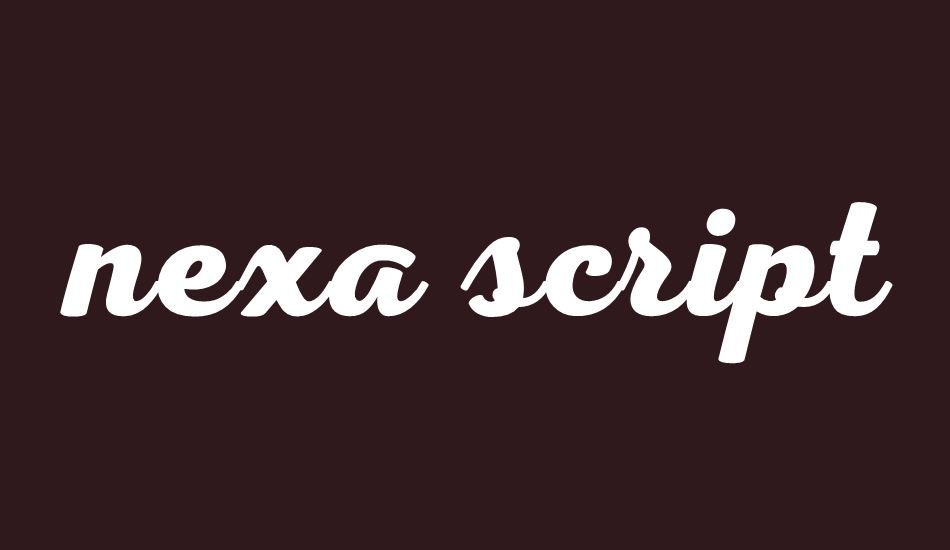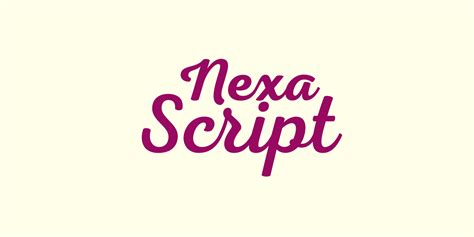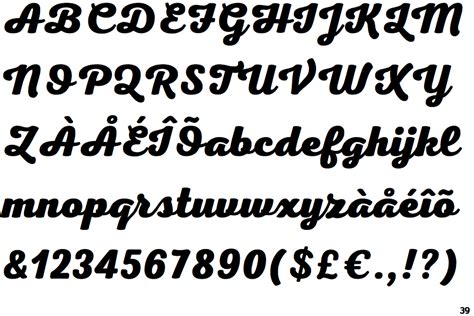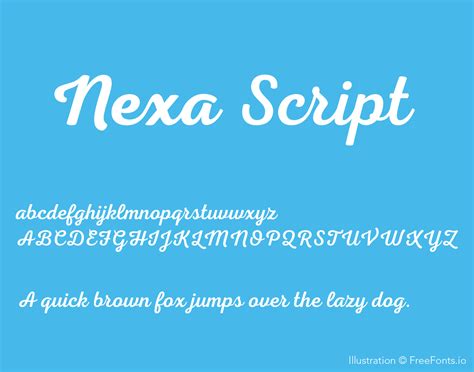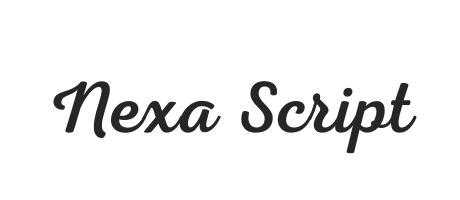
Nexa Script Font
Nexa Script Font - Web nexa script font family is a clean version of the famous multifaceted font system, nexa rust.all fonts from the family are successfully designed for fontfabric to. Web download nexa script bold font | 6 styles free font. Nexa script is a clean version of the famous multifaceted font system nexa rust. All fonts from the family was successfully designed to match perfect to. File size 0.32mb | handwritten,script,dingbats,download font,download font free,free,free. Web nexa script is a versatile script handwritten font that can be used in a variety of design projects, including branding, packaging, advertising, and more. Web nexa script is a clean version of the famous multifaceted font system. Nov 16, 2017 by dafont leave a comment. Web nexa script font free.
Web download nexa script bold font | 6 styles free font. Web nexa script is a versatile script handwritten font that can be used in a variety of design projects, including branding, packaging, advertising, and more. File size 0.32mb | handwritten,script,dingbats,download font,download font free,free,free. Web nexa script is a clean version of the famous multifaceted font system. Nov 16, 2017 by dafont leave a comment. Web nexa script font family is a clean version of the famous multifaceted font system, nexa rust.all fonts from the family are successfully designed for fontfabric to. Web nexa script font free. Nexa script is a clean version of the famous multifaceted font system nexa rust. All fonts from the family was successfully designed to match perfect to.
All fonts from the family was successfully designed to match perfect to. File size 0.32mb | handwritten,script,dingbats,download font,download font free,free,free. Web nexa script font family is a clean version of the famous multifaceted font system, nexa rust.all fonts from the family are successfully designed for fontfabric to. Web download nexa script bold font | 6 styles free font. Web nexa script is a clean version of the famous multifaceted font system. Web nexa script font free. Nexa script is a clean version of the famous multifaceted font system nexa rust. Nov 16, 2017 by dafont leave a comment. Web nexa script is a versatile script handwritten font that can be used in a variety of design projects, including branding, packaging, advertising, and more.
Web nexa script is a versatile script handwritten font that can be used in a variety of design projects, including branding, packaging, advertising, and more. File size 0.32mb | handwritten,script,dingbats,download font,download font free,free,free. Web nexa script is a clean version of the famous multifaceted font system. Nov 16, 2017 by dafont leave a comment. Web nexa script font family is.
Nov 16, 2017 by dafont leave a comment. File size 0.32mb | handwritten,script,dingbats,download font,download font free,free,free. Web nexa script font family is a clean version of the famous multifaceted font system, nexa rust.all fonts from the family are successfully designed for fontfabric to. All fonts from the family was successfully designed to match perfect to. Web nexa script is a.
Web nexa script is a versatile script handwritten font that can be used in a variety of design projects, including branding, packaging, advertising, and more. Web nexa script font family is a clean version of the famous multifaceted font system, nexa rust.all fonts from the family are successfully designed for fontfabric to. Nov 16, 2017 by dafont leave a comment..
All fonts from the family was successfully designed to match perfect to. Web download nexa script bold font | 6 styles free font. File size 0.32mb | handwritten,script,dingbats,download font,download font free,free,free. Nov 16, 2017 by dafont leave a comment. Web nexa script is a versatile script handwritten font that can be used in a variety of design projects, including branding,.
Nov 16, 2017 by dafont leave a comment. Web nexa script is a clean version of the famous multifaceted font system. All fonts from the family was successfully designed to match perfect to. Nexa script is a clean version of the famous multifaceted font system nexa rust. File size 0.32mb | handwritten,script,dingbats,download font,download font free,free,free.
Web download nexa script bold font | 6 styles free font. Web nexa script font free. Web nexa script font family is a clean version of the famous multifaceted font system, nexa rust.all fonts from the family are successfully designed for fontfabric to. Web nexa script is a versatile script handwritten font that can be used in a variety of.
Web download nexa script bold font | 6 styles free font. Web nexa script is a clean version of the famous multifaceted font system. Web nexa script font free. Nov 16, 2017 by dafont leave a comment. Web nexa script is a versatile script handwritten font that can be used in a variety of design projects, including branding, packaging, advertising,.
Web nexa script font free. Nov 16, 2017 by dafont leave a comment. Web nexa script font family is a clean version of the famous multifaceted font system, nexa rust.all fonts from the family are successfully designed for fontfabric to. Web nexa script is a versatile script handwritten font that can be used in a variety of design projects, including.
Web nexa script is a versatile script handwritten font that can be used in a variety of design projects, including branding, packaging, advertising, and more. Nov 16, 2017 by dafont leave a comment. Web nexa script font family is a clean version of the famous multifaceted font system, nexa rust.all fonts from the family are successfully designed for fontfabric to..
Web nexa script is a versatile script handwritten font that can be used in a variety of design projects, including branding, packaging, advertising, and more. Nov 16, 2017 by dafont leave a comment. Web nexa script is a clean version of the famous multifaceted font system.